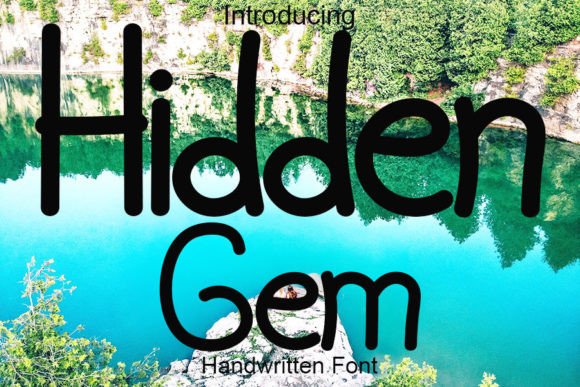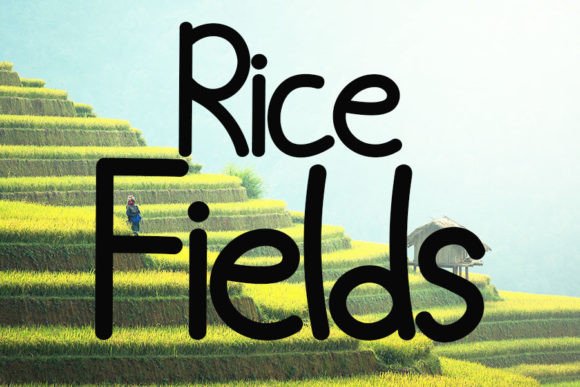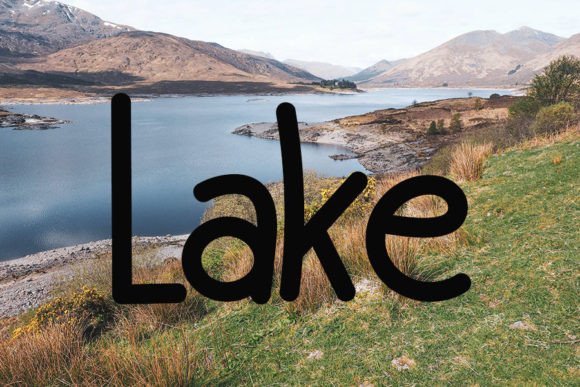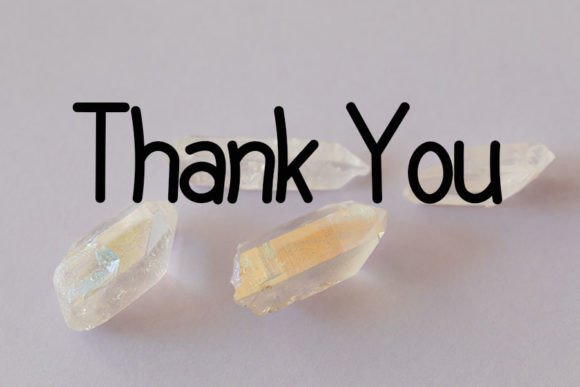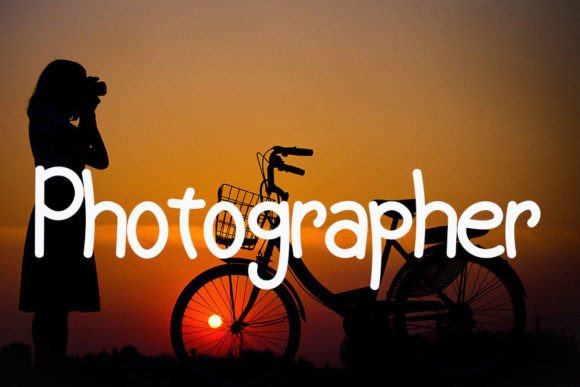
About Hidden Gem Font
“Hidden Gem” is more than just a font; it’s a fun and friendly handwritten typeface that will add a touch of whimsy and personality to your creative projects. This font stands out with its distinct and timeless style, making it a versatile choice for a wide range of designs.
The charm of “Hidden Gem” lies in its handwritten and friendly style. Its playful strokes make it an ideal font for projects that require a casual and approachable vibe. Whether used for quotes, social media posts, invitations, or any creative endeavor, this font brings a sense of fun and uniqueness.
Imagine “Hidden Gem” infusing your designs with a burst of creativity, where its handwritten style adds a personal and engaging touch. Picture it used in social media posts, creating a friendly and inviting atmosphere. Envision this font enhancing invitations, making your designs stand out with a whimsical flair.
One of the standout features of “Hidden Gem” is its ability to bring a fun and friendly vibe to your projects, making it suitable for various design contexts.
Whether you’re working on quotes, social media graphics, or any creative project, “Hidden Gem” offers a handwritten font that adds a touch of playfulness to your creations. It’s not just a font; it’s a creative asset that brings character and charm to your projects. Let “Hidden Gem” be the handwritten font that transforms your designs into visually captivating and delightful works of art.